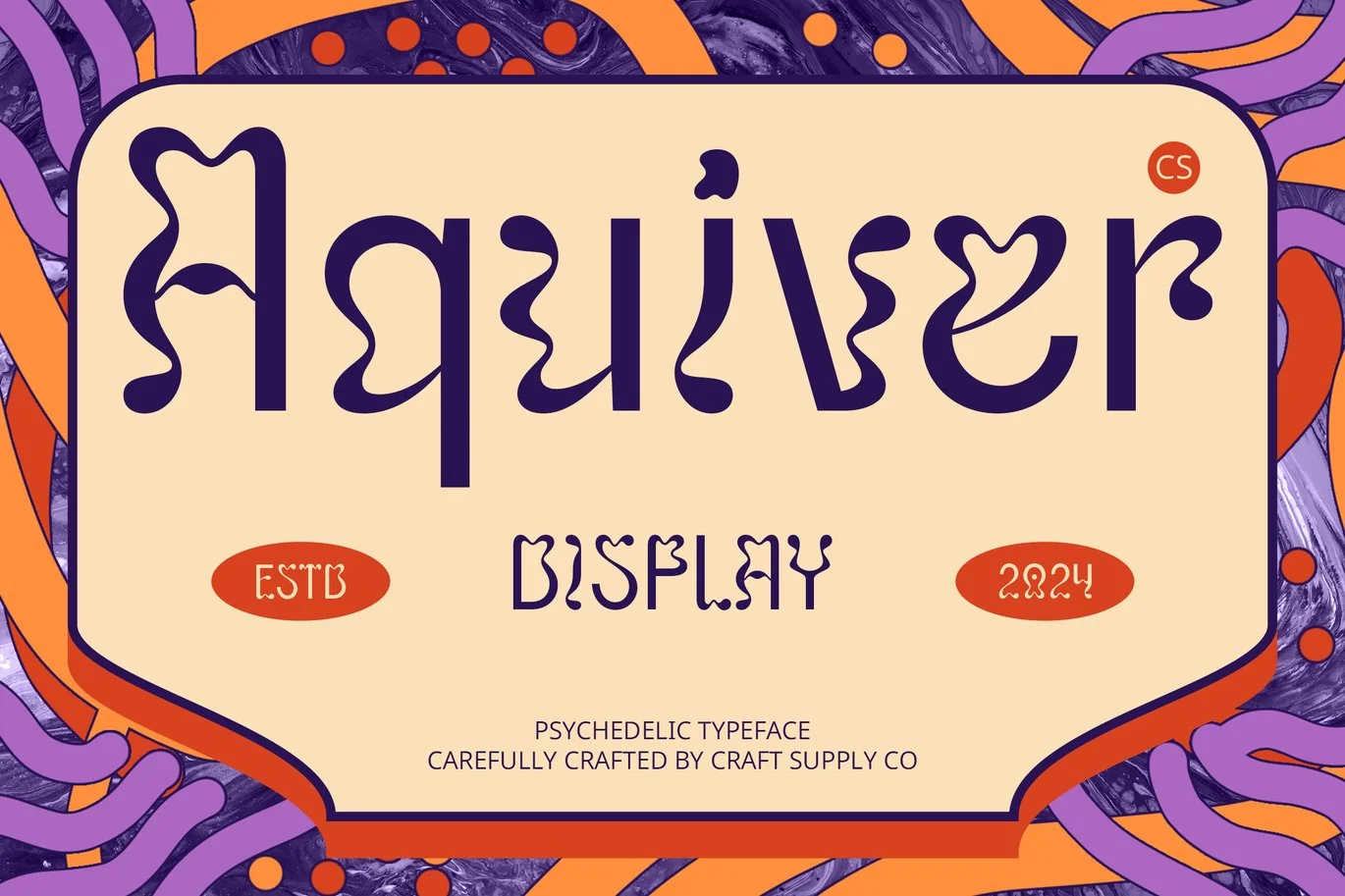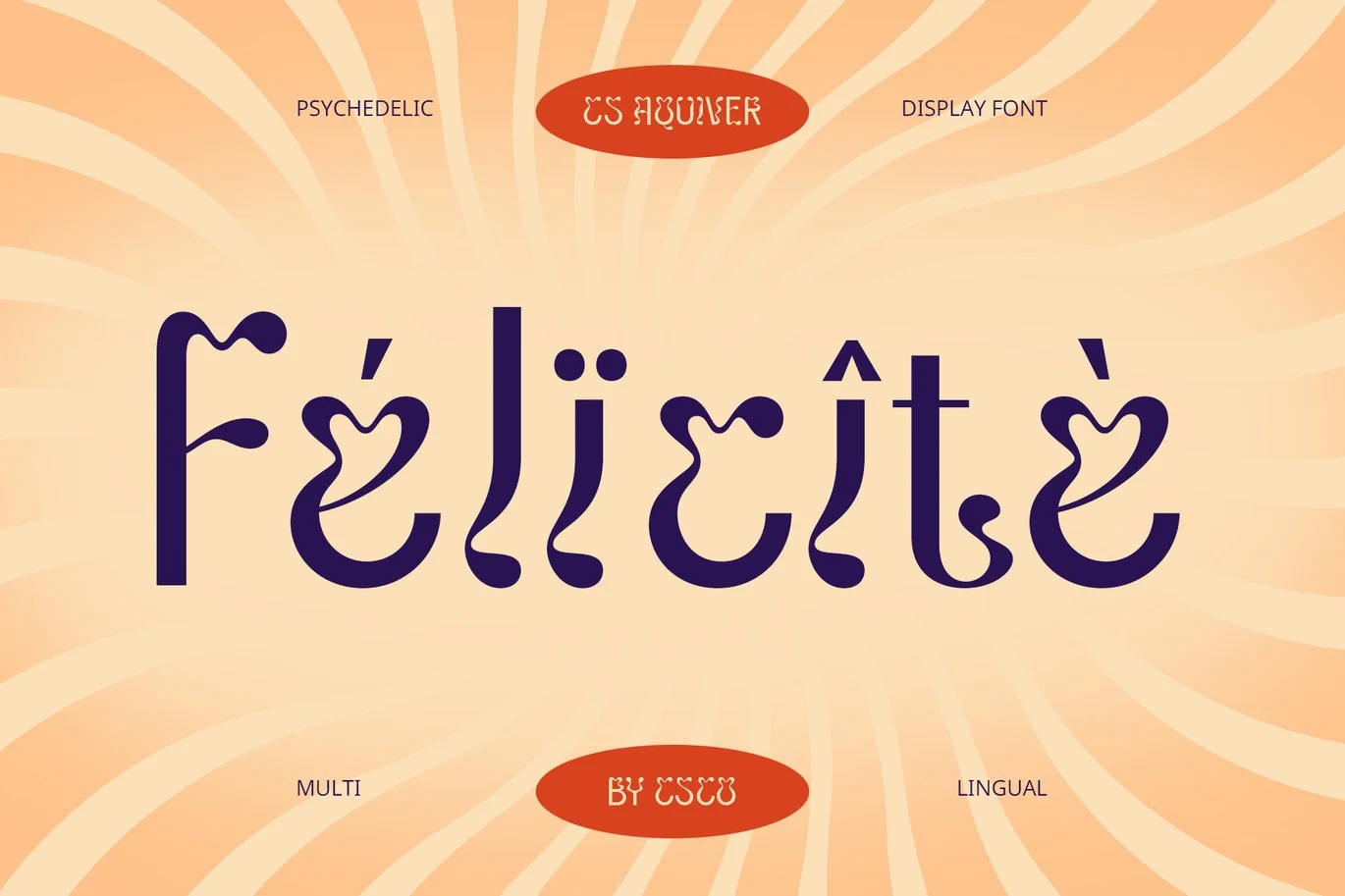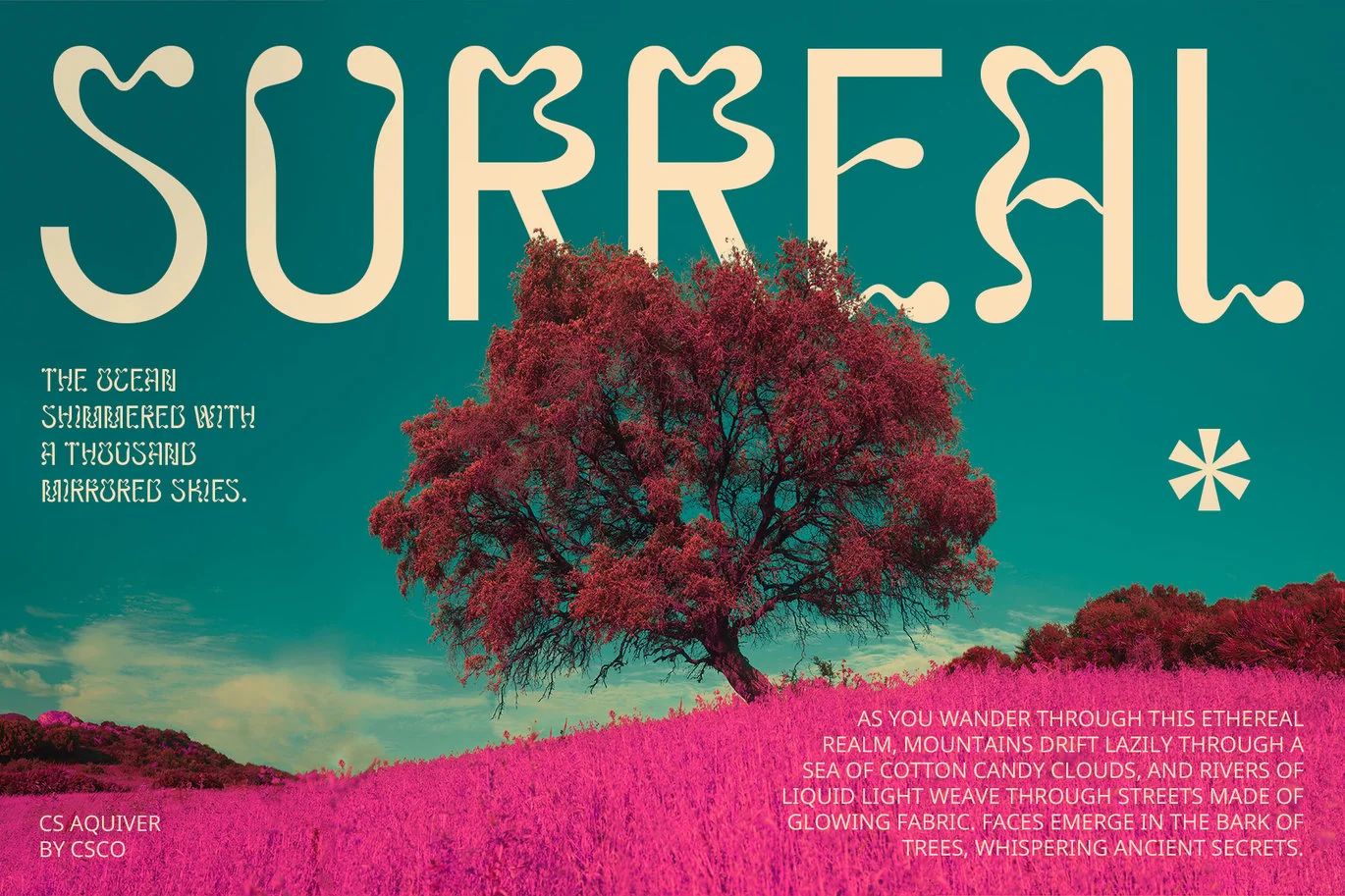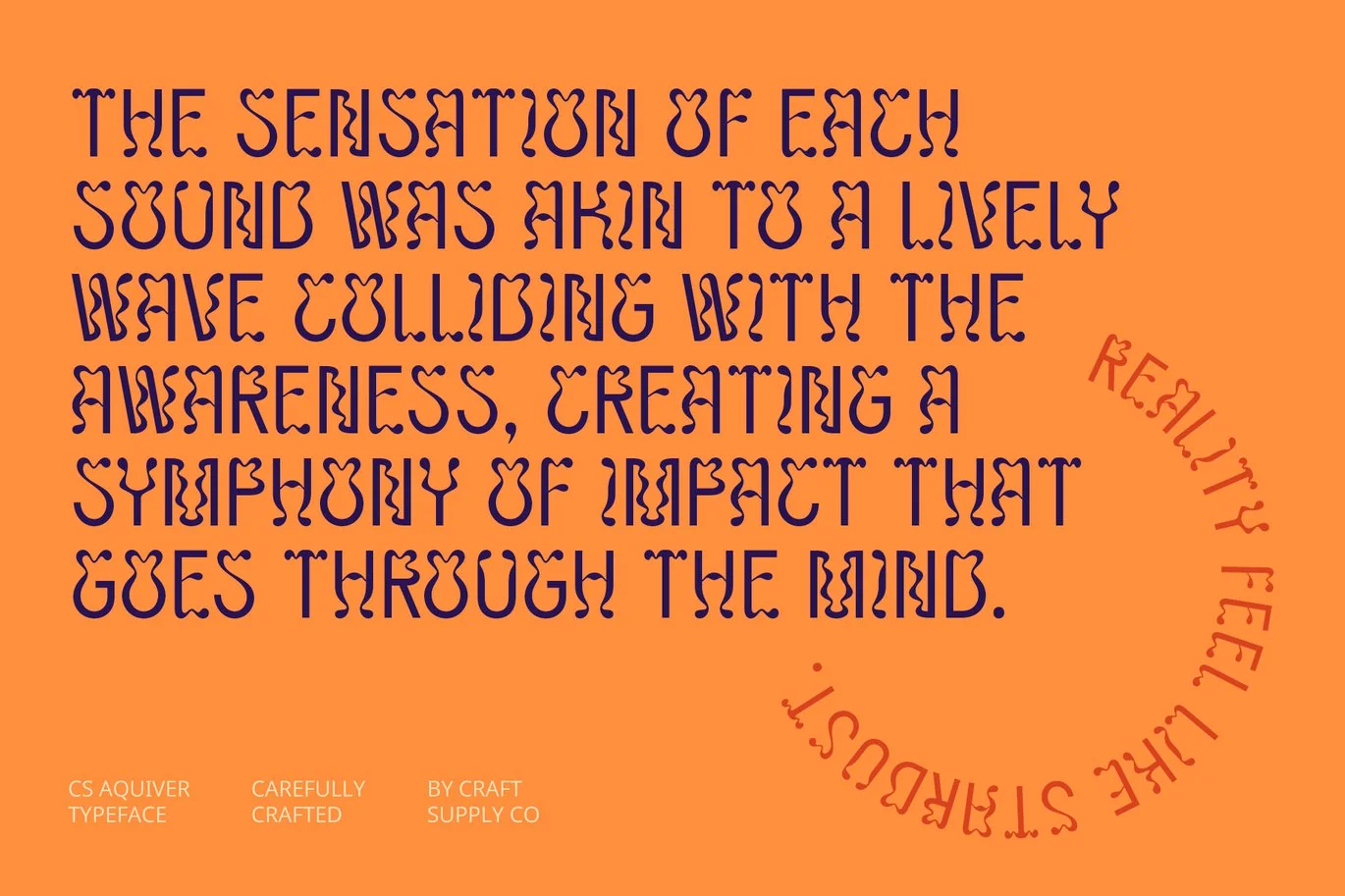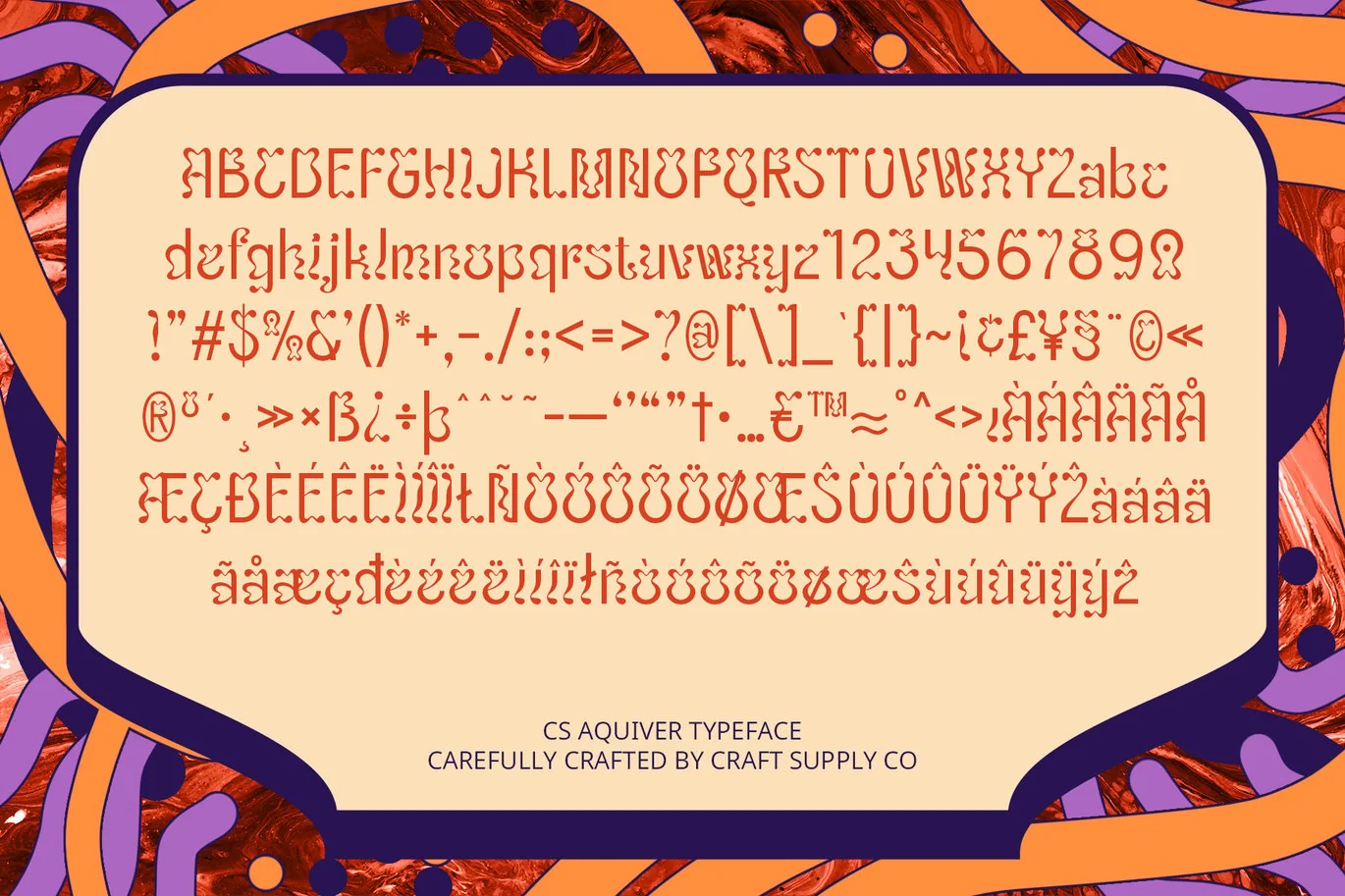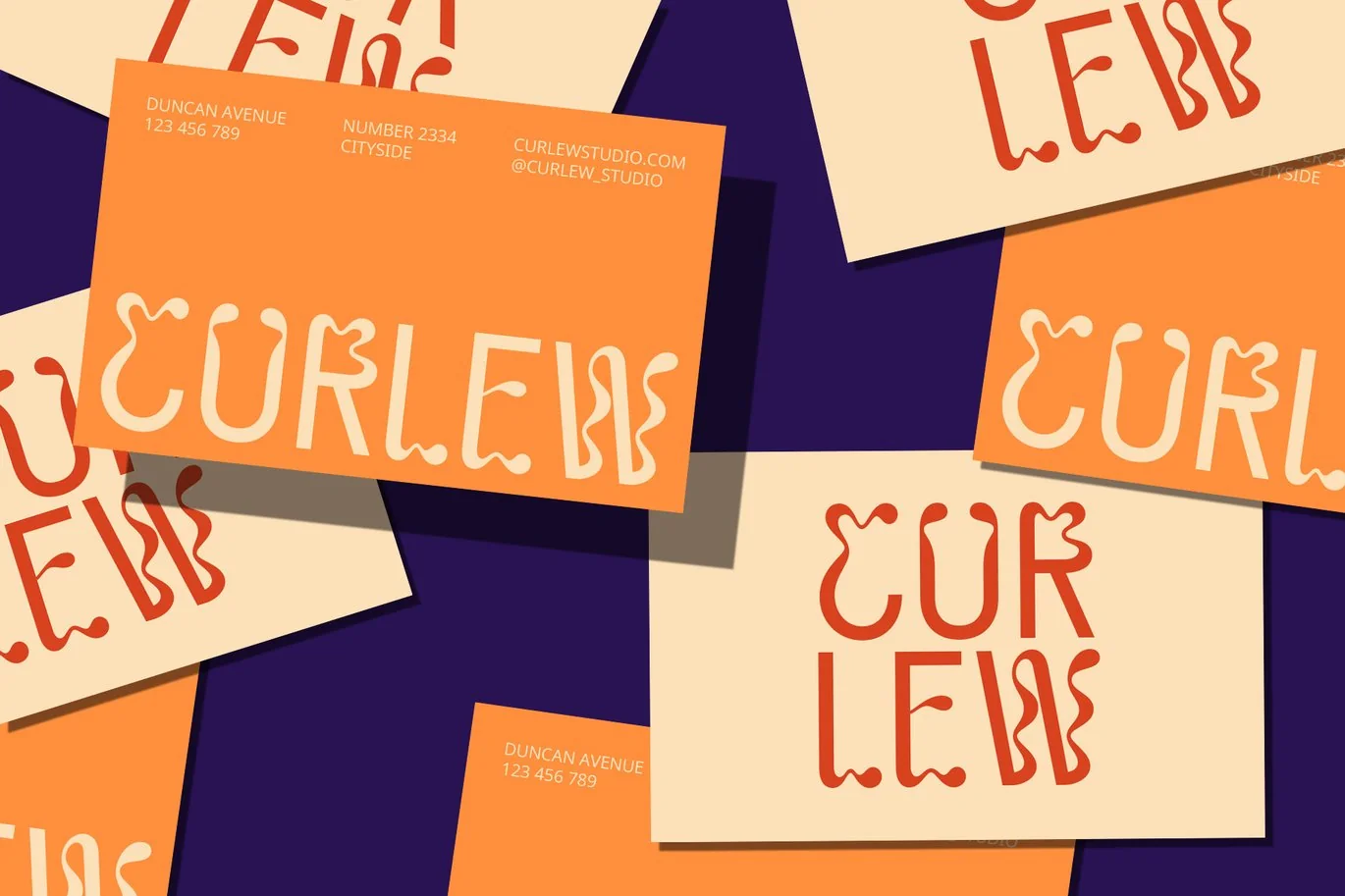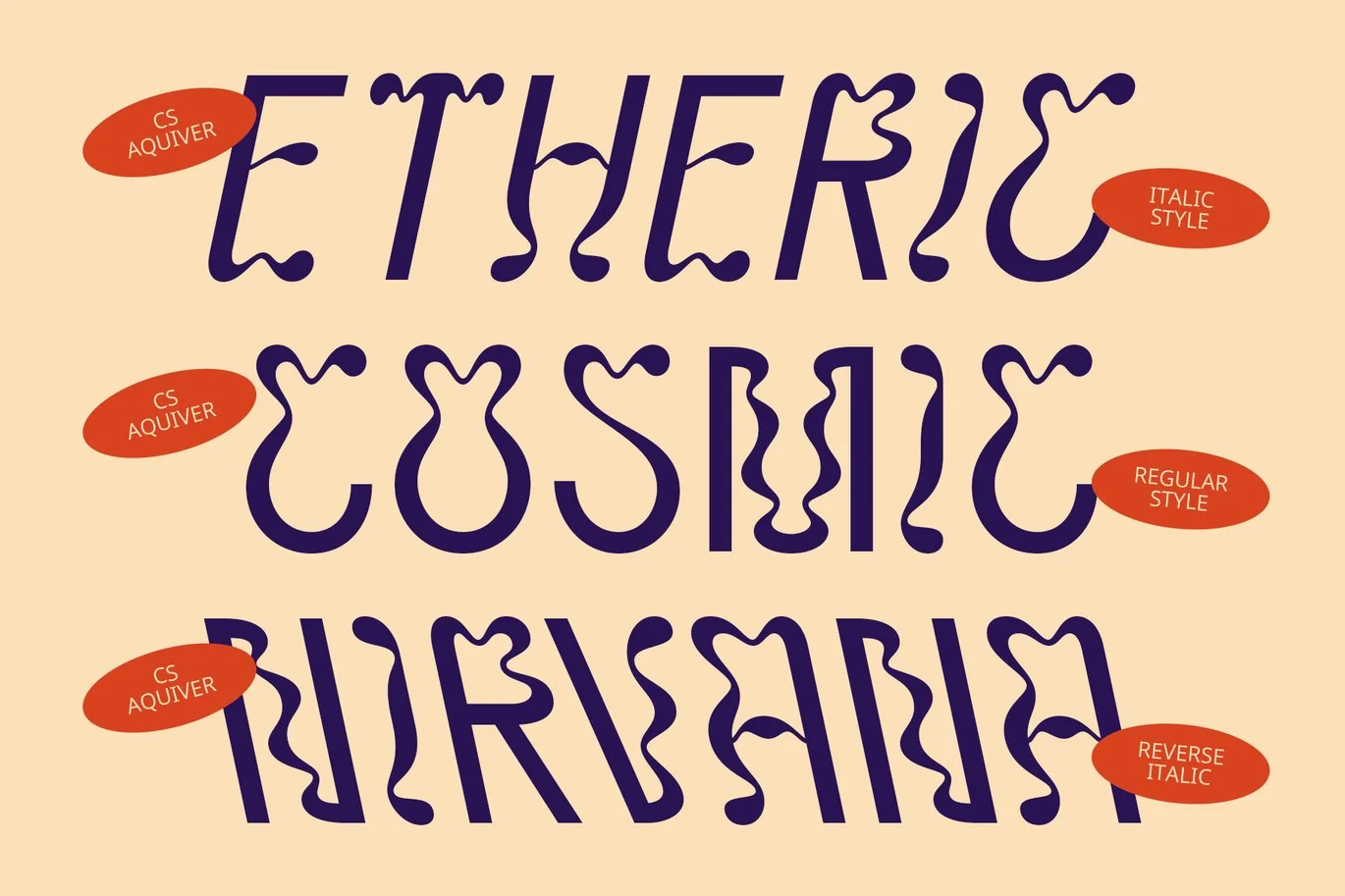
CS Aquiver – Psychedelic Font
CS Aquiver – Psychedelic Display Font
Vibrant and Bold Psychedelic Design
CS Aquiver is a psychedelic display font that features a vibrant, bold design with trippy elements. Its letters are characterized by swirling, curved shapes and dynamic distortions, creating an expressive and unconventional appearance. This font captures the essence of psychedelic art with its bold, funky visual style.
Unique and Artistic Appeal
With its use of color gradients, asymmetrical shapes, and unconventional design features, CS Aquiver stands out with a highly artistic and innovative appeal. The font’s unique characteristics make it perfect for projects that aim to showcase creativity and visual impact.
Ideal for Creative and Experimental Designs
CS Aquiver is especially suited for music posters, experimental graphics, and other design projects that seek to highlight creativity and playfulness. Its distinctive style enhances the visual interest of any project, making it a perfect choice for eye-catching, memorable designs.
Expressive and Engaging Aesthetic
The trippy, psychedelic style of CS Aquiver brings a playful and vibrant energy to your designs. Whether you’re creating promotional materials or artistic graphics, this font adds a unique touch that captures attention and evokes a sense of fun and creativity.